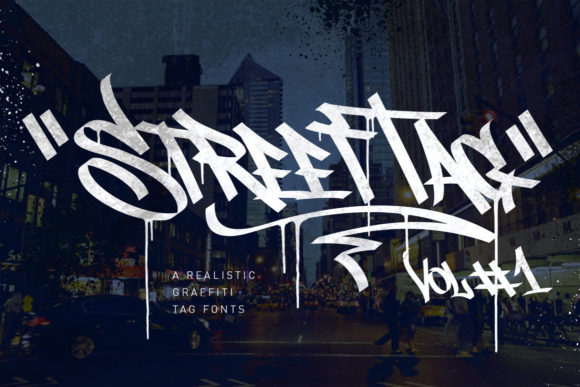
Street Tag Vol 1 Font
**Take Your Designs to the Urban Edge with Street Tag Vol 1**
Immerse your projects in the vibrant heartbeat of street culture with Street Tag Vol 1, a captivating display font family that pulses with the raw energy of graffiti.
This typographic masterpiece, meticulously crafted by the skilled hands at tomatstudio, captures the essence of urban art's rebellious spirit. Its bold strokes evoke the unapologetic energy of street murals, empowering your designs with a distinct urban swagger.
**Unleash Your Creative Fury**
With Street Tag Vol 1 as your weapon of choice, you can:
* **Elevate Your Typography:** Transform ordinary text into eye-catching statements that command attention.
* **Ignite Your Imagination:** Draw inspiration from the vibrant streets and infuse your designs with an authentic urban touch.
* **Make a Statement:** Let your words resonate with the power and confidence of graffiti, leaving an unforgettable mark on your audience.
**Embrace the Urban Revolution**
Street Tag Vol 1 isn't just a font; it's a gateway to the world of urban art. It empowers you to:
* **Express Your Individuality:** Showcase your unique style and perspective through bold and expressive typography.
* **Connect with Your Audience:** Tap into the raw emotions and energy that street culture evokes, establishing a deeper connection with your audience.
* **Stand Out from the Crowd:** Break free from conventional design norms and let your projects radiate with the vibrancy of street art.
**Experience the Heartbeat of the City**
Whether you're a seasoned designer or a typography enthusiast, Street Tag Vol 1 invites you to dive into the vibrant depths of urban culture. Unleash your creativity, connect with your audience, and let your designs dance to the rhythm of the streets.